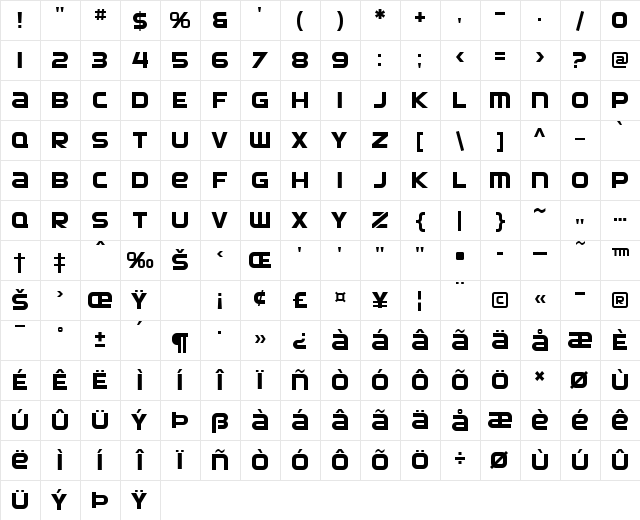
Complete SF Automaton Regular glyph index. Displaying only characters natively supported by SF Automaton Regular font.
SF Automaton is a composed and adaptable typeface that performs quietly and consistently across a wide range of design contexts.